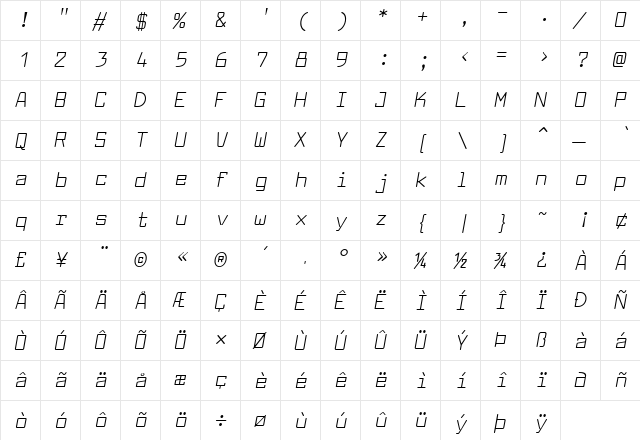
Larabiefont Italic
Design Context for Larabiefont Typeface
Larabiefont is a composed and adaptable typeface that performs quietly and consistently across a wide range of design contexts. The slanted form adds forward momentum and visual energy.
Pro Tip: Try Larabiefont for annotation and caption copy alongside an upright companion — the contrast in angle creates a dynamic but ordered typographic system.